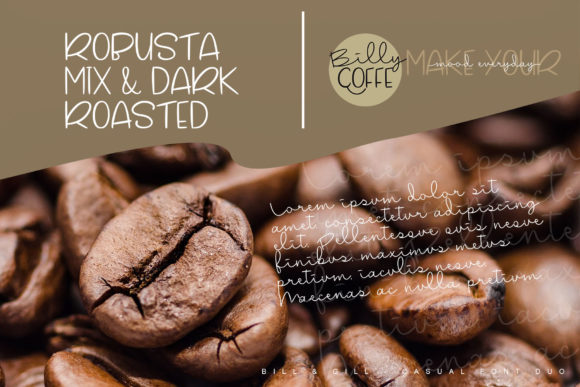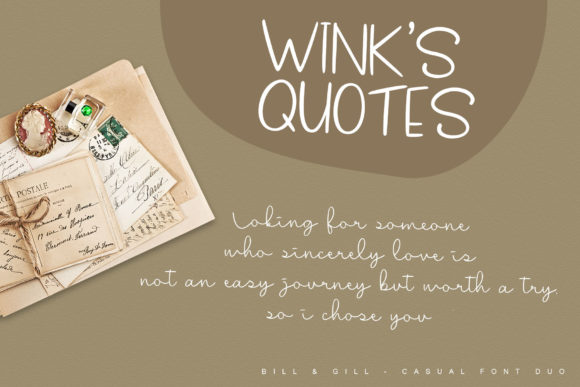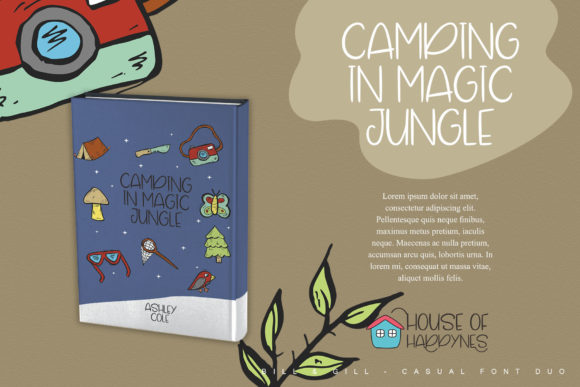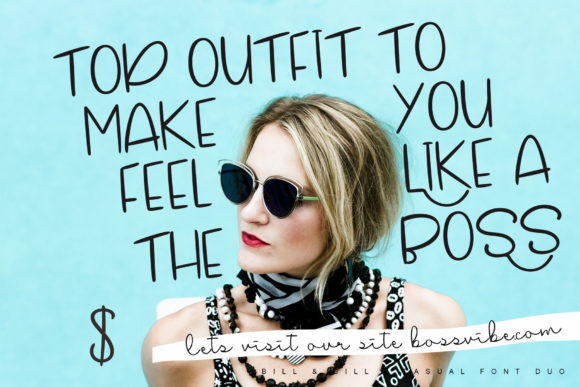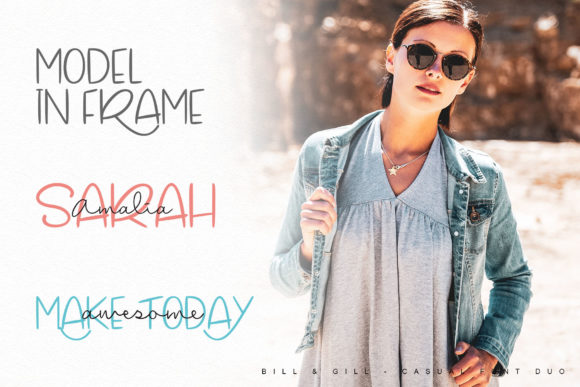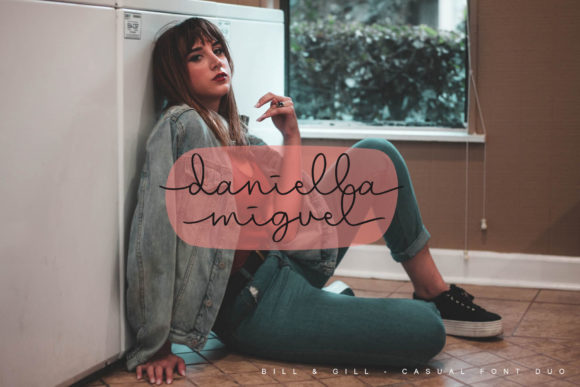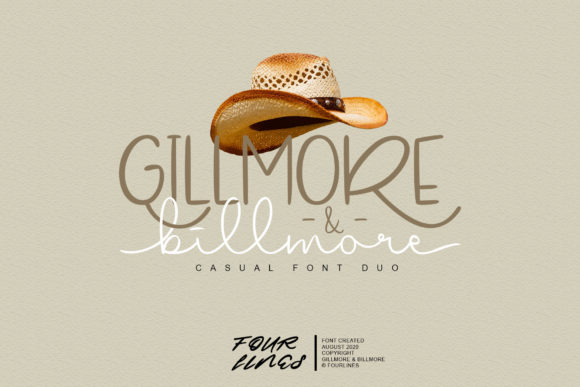
Discover the Elegance of Gillmore & Billmore Font: A Versatile Duo for Creative Projects
Are you on the hunt for a font duo that exudes elegance, versatility, and a touch of relaxed sophistication? Look no further than the Gillmore & Billmore Font. This beautiful pair, consisting of a script and a display font, is designed to capture the hearts of designers, crafters, and anyone looking to add a dash of style to their projects. In this article, we’ll dive into the world of Gillmore & Billmore, exploring its features, uses, and the magic it can bring to your creative endeavors.
The Essence of Gillmore & Billmore
Gillmore & Billmore is more than just a font duo; it’s a creative companion that can elevate your designs to new heights. The script font is fluid, elegant, and perfect for creating a sense of movement and grace in your projects. On the other hand, the display font is bold, eye-catching, and designed to make a statement. Together, they form a versatile pair that can adapt to a wide range of design needs.
Features of Gillmore & Billmore Font
- Dual Font Style: The duo includes a beautiful script font and a bold display font, offering flexibility and variety in your designs.
- Elegant and Relaxed: The fonts boast an incredibly versatile style that is both elegant and relaxed, suitable for various design projects.
- Highly Versatile: From wedding invitations to social media posts, the Gillmore & Billmore font duo can be used in a multitude of creative projects.
- Easy to Read: Despite its elegant and bold features, the font remains highly legible, making it perfect for both headings and body text.
Creative Applications of Gillmore & Billmore
The possibilities are endless with Gillmore & Billmore. Here are some ideas to get you started:
- Wedding Invitations: Create stunning wedding invites that set the tone for a beautiful and elegant celebration.
- Stationery Art: Design gorgeous stationery, including greeting cards, thank you cards, and personalized letters.
- Social Media Posts: Elevate your social media game with eye-catching posts that grab attention and convey your message in style.
- Branding: Use Gillmore & Billmore to create a unique and memorable brand identity that stands out from the crowd.
- Packaging: Add a touch of elegance to your product packaging and make it more appealing to customers.
Tips for Using Gillmore & Billmore Effectively
To make the most of Gillmore & Billmore, consider the following tips:
- Mix and Match: Combine the script and display fonts to create visual interest and hierarchy in your designs.
- Play with Sizes: Experiment with different font sizes to emphasize certain elements and create a balanced design.
- Adjust Spacing: Pay attention to letter spacing and line height to ensure your text is readable and visually appealing.
- Add Decorations: Consider adding subtle decorations or graphics to complement the fonts and enhance your design.
Gillmore & Billmore Font is a game-changer for designers and crafters looking for a versatile, elegant, and relaxed font duo. Its unique style and wide range of applications make it an excellent choice for various creative projects. Whether you’re designing wedding invitations, crafting social media posts, or developing a brand identity, Gillmore & Billmore is sure to impress. So why wait? Fall in love with Gillmore & Billmore and unlock a world of creative possibilities.